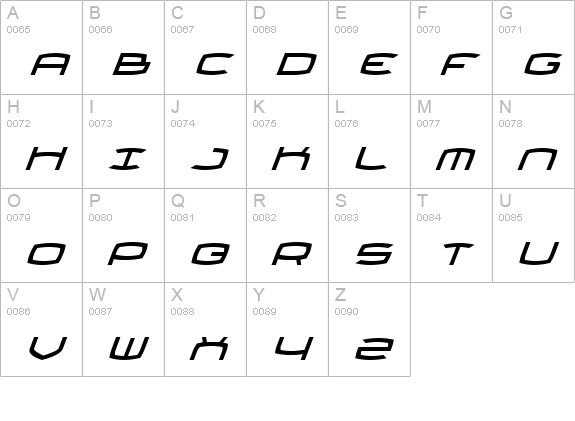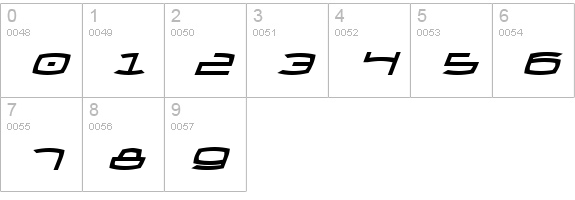
Thundergod Italic is a distinctive, italic variant in the Thundergod typeface family \xE2\x80\x94 well suited to design and typography projects.
Introducing Thundergod Italic, a powerful and electrifying font that is sure to strike a chord with designers and typographers alike. This dynamic typeface captures the essence of thunderstorms, blending intense energy with a touch of elegance. With its bold and slanted letterforms, Thundergod Italic exudes strength and determination. Each character crackles with electricity, commanding attention and leaving a lasting impact on any design project. Whether it's used for headlines, logos, or posters, this font is guaranteed to make a thunderous statement. But what sets Thundergod Italic apart is not only its striking aesthetics, but also its accessibility. We believe that great design should be available to all, which is why we are proud to offer this font for free. Yes, you read that right - Thundergod Italic is freely available to download at FontsMarket.com. Unleash the power of Thundergod Italic and add a touch of electrifying brilliance to your creative endeavors. With its seamless integration into any design software, this font is ready to take your projects to new heights. So don't hold back - embrace the thunder and let your creativity soar with Thundergod Italic.